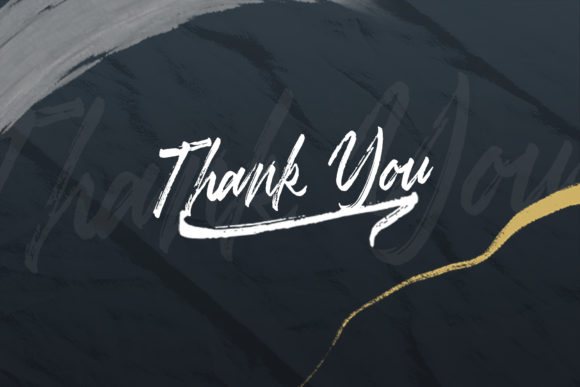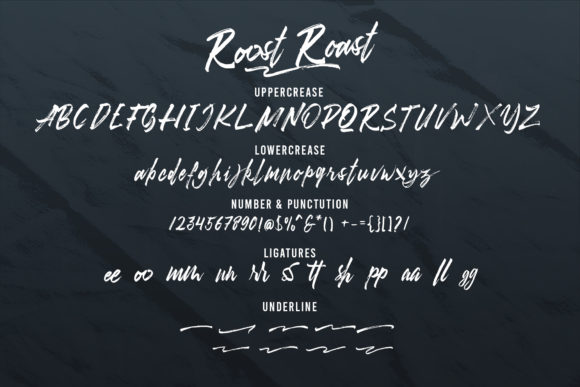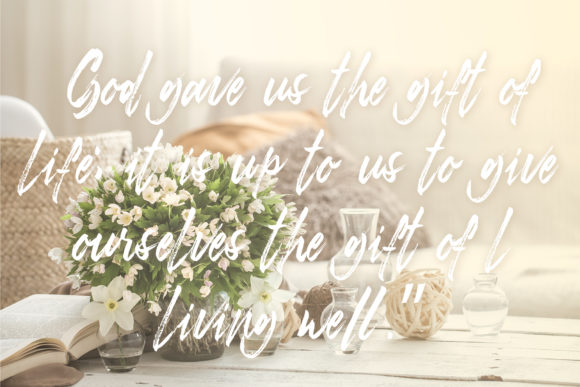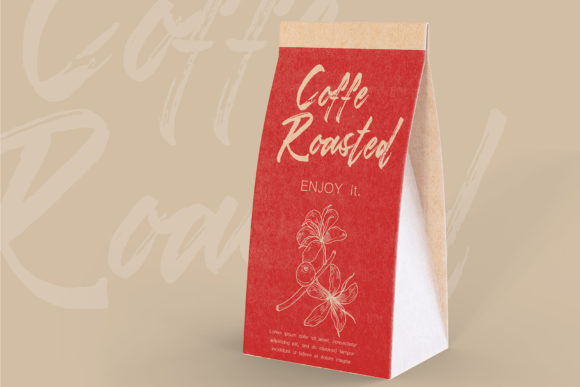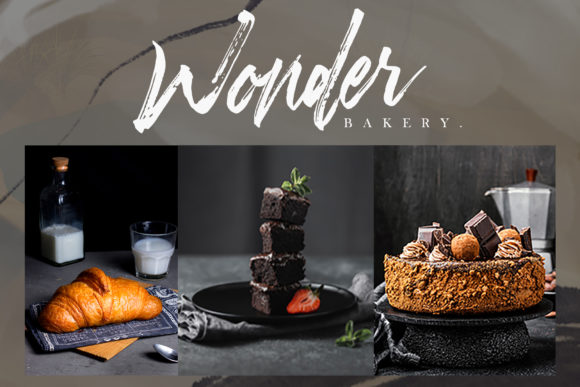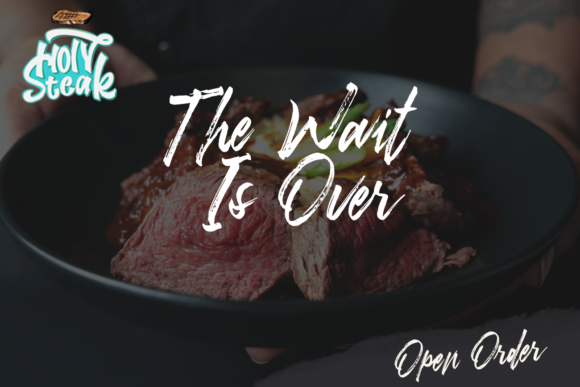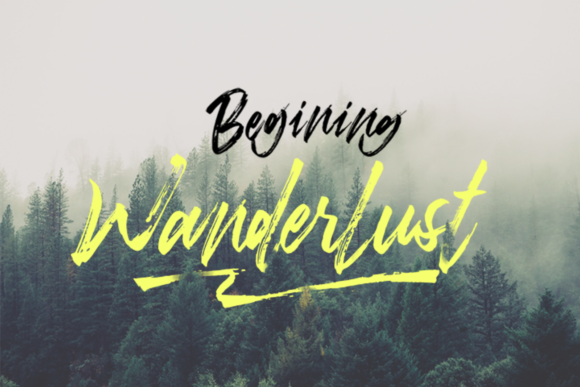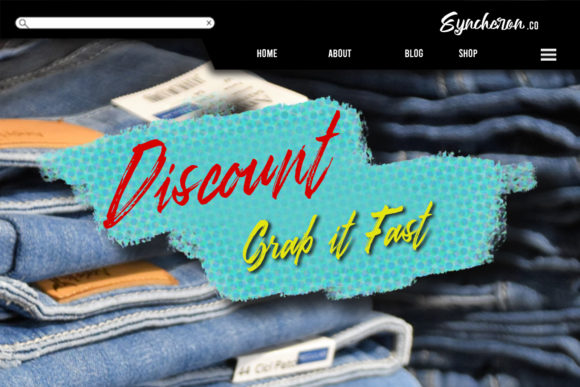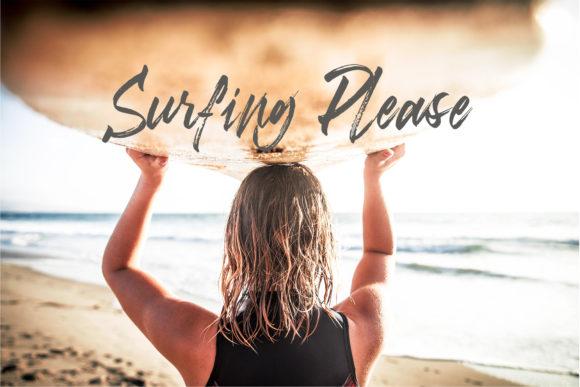
Roost-Roast Font
About Roost-Roast Font
Roost Roast is a casual, fun handwritten font, created by using a brush pen. Clean and a little bit quirky, this font is the perfect fit for all of your logos, branding, social media, and crafty DIY projects.